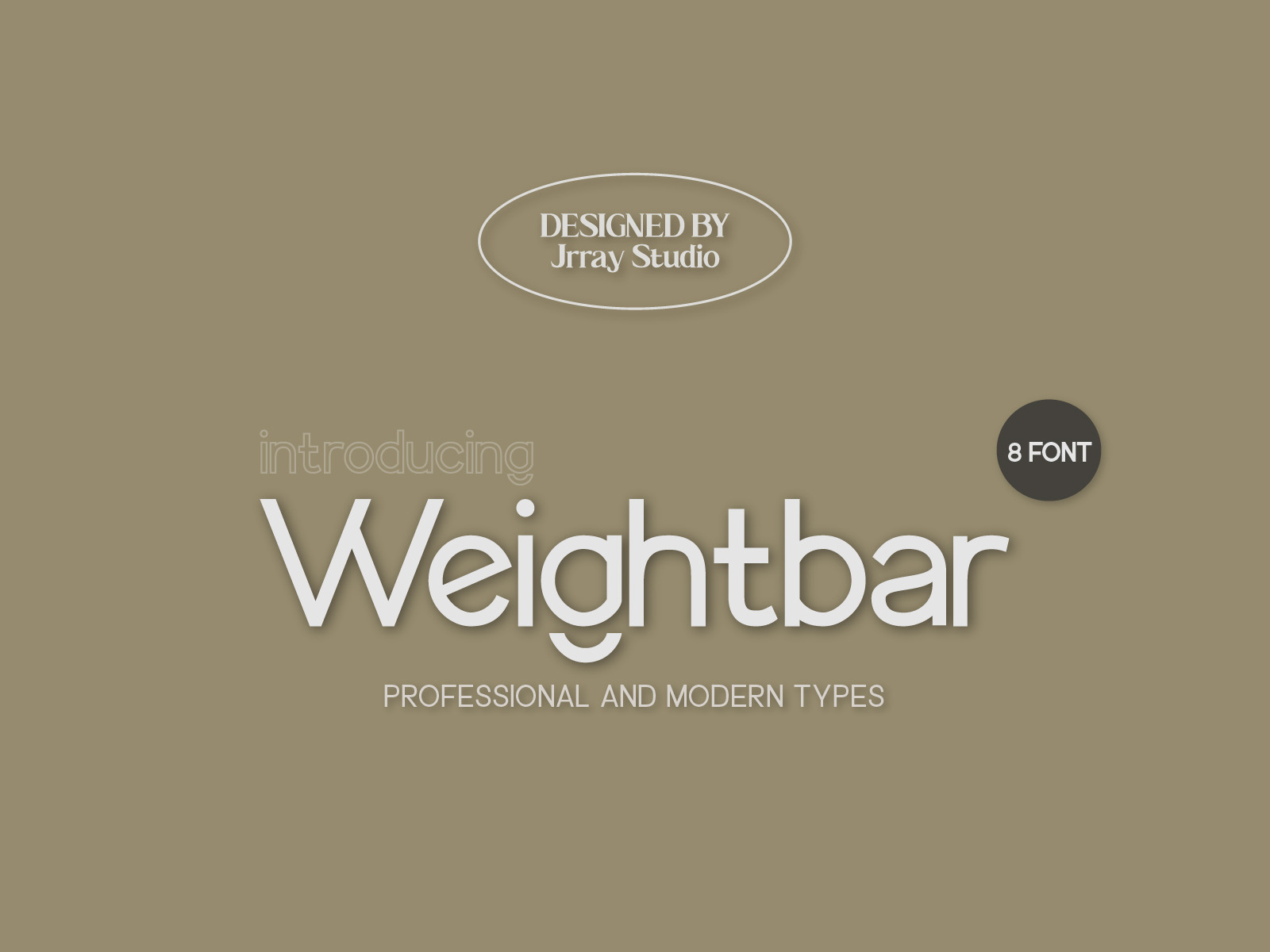
Weightbar Sans Serif Font
Say hello to "Weightbar" , a Professional and Modern Sans-Serif font. Weightbar is designed to be an easy go to for branding, web, print design projects and other.